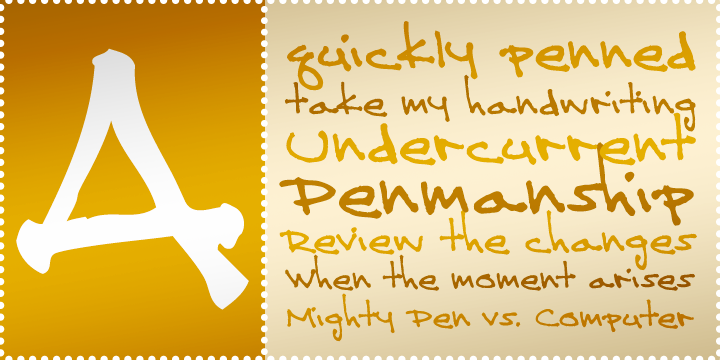
Undercurrent is a handwriting typeface inspired by an architectural look.
Use this masculine typeface to capture clean meeting notes or write a screenplay!